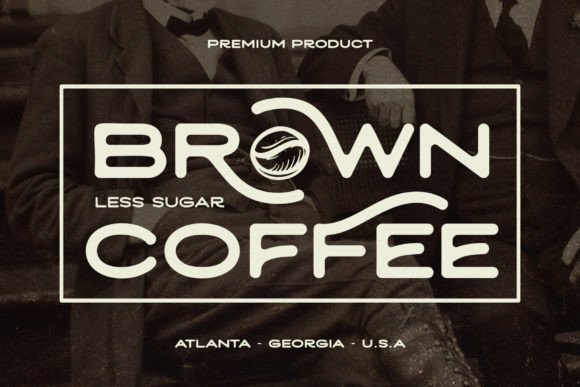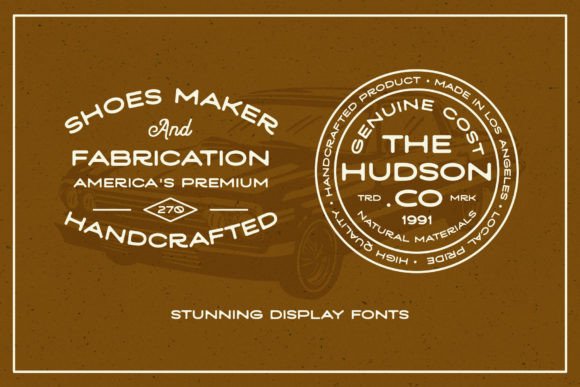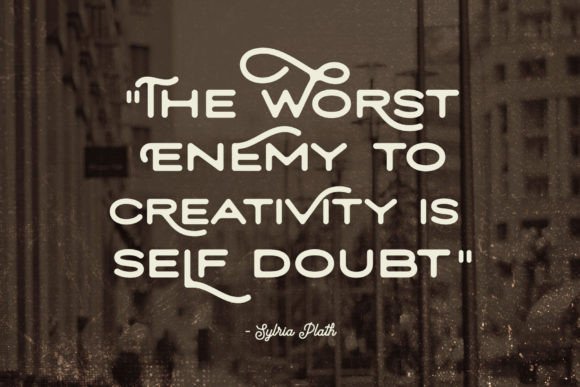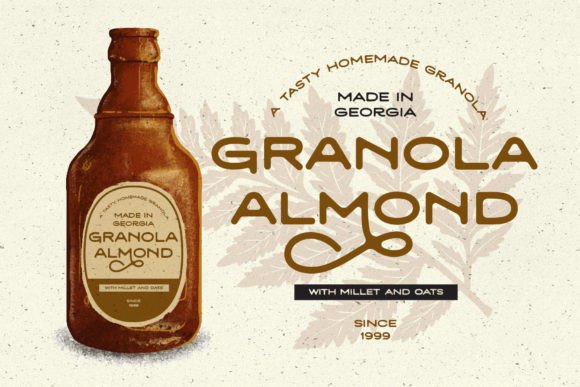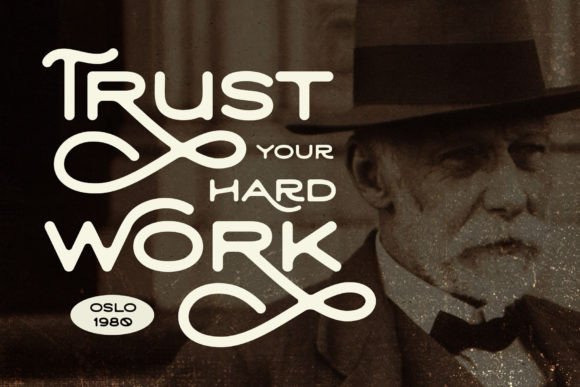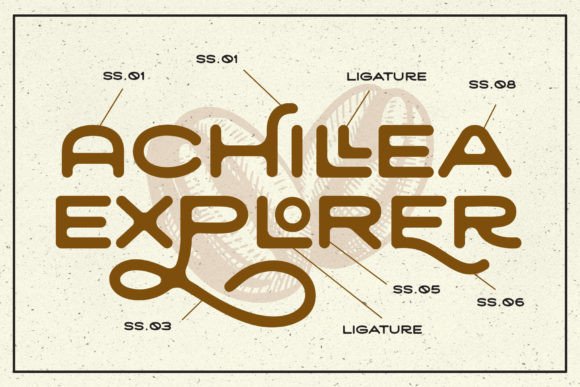
Introduction to Romires Font
Introducing Romires – a monoline font with wide letterforms and an inky letterpress effect.
This font is inspired by old-school design and is perfect for creating designs with a natural, classic touch Romires font includes special characters, swashes, and multilingual support, making it a versatile choice for a range of projects.
Key Features of Romires Font